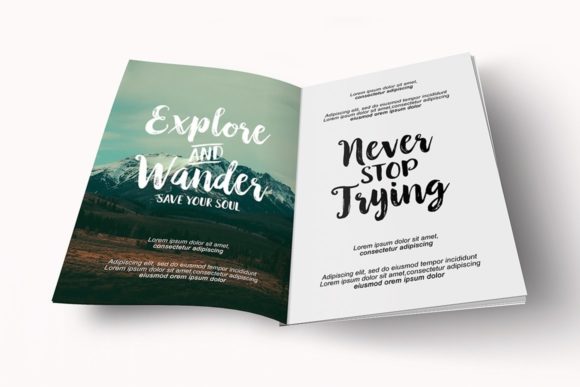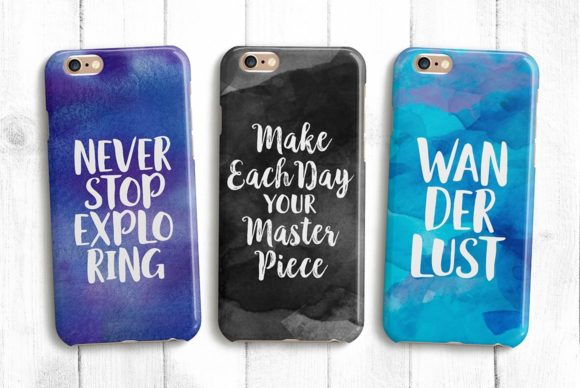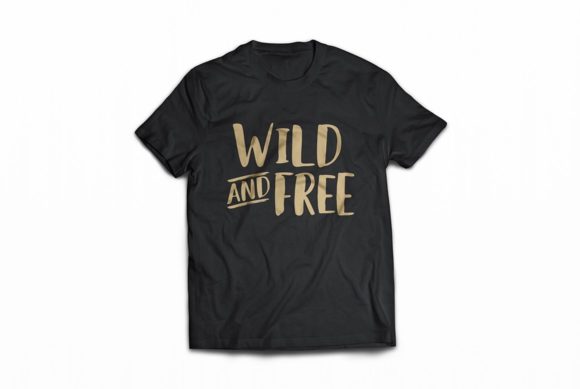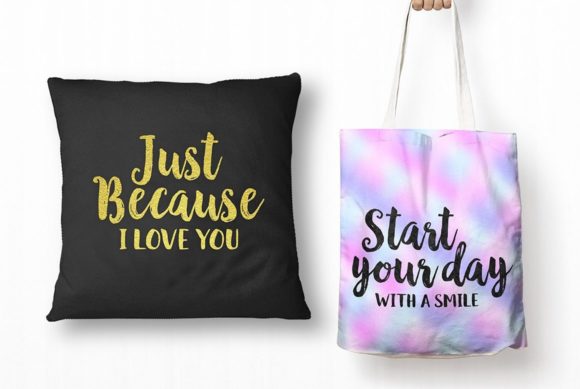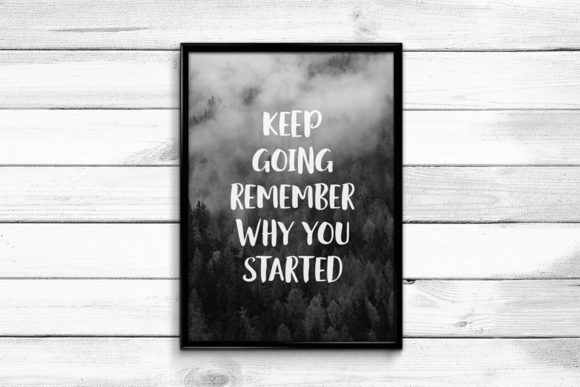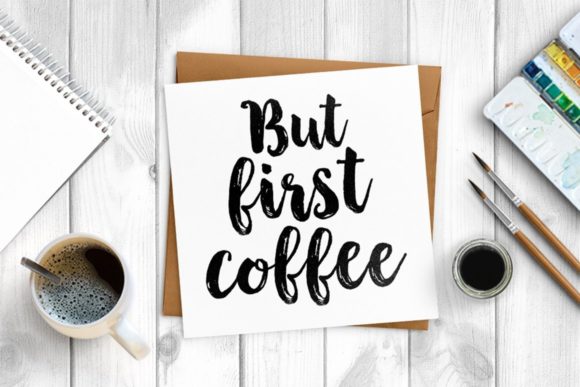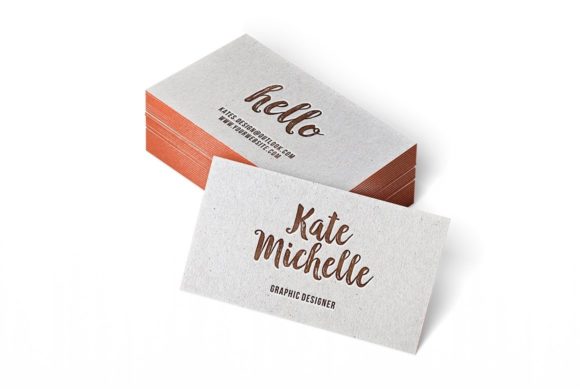
Black & White Font
About Black & White Font
Black & White is a dynamic font duo consisting of two complementary typefaces designed to harmonize seamlessly. Whether used together or individually, these fonts are perfect for imparting a chic and cheerful touch to your creative projects. With a brushed style, Black & White brings a sense of modernity and energy to your crafts. The inclusion of PUA encoding ensures easy access to all glyphs and swashes, offering a range of customization options for your designs.
The versatility of Black & White shines through in its ability to be used jointly or separately, providing creative freedom in your projects. The brushed aesthetic of the fonts adds a contemporary and lively feel, making them well-suited for a variety of applications, including branding, posters, invitations, and more.
The PUA encoding feature further enhances the fonts’ flexibility by allowing effortless access to a wide array of glyphs and swashes. This opens up a world of creative possibilities, enabling you to tailor your designs with unique and eye-catching elements.
In summary, Black & White is not just a font duo; it’s a versatile design tool that combines chic and cheery elements to elevate your crafts. Whether you’re looking to create a cohesive brand identity or add a playful touch to individual projects, Black & White provides the versatility and accessibility needed to make your designs stand out. Let this font duo be the brushstroke of modernity and style in your creative endeavors.